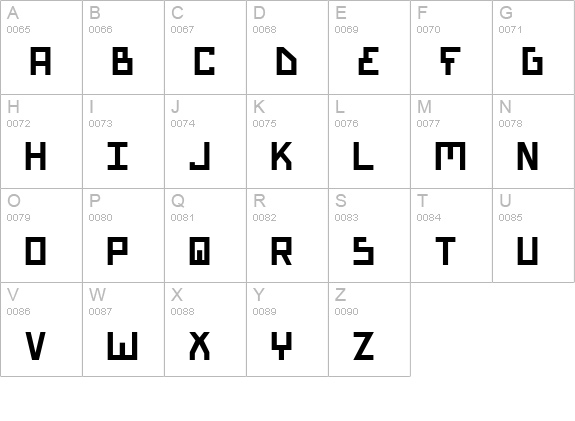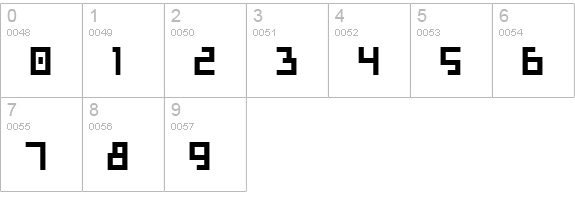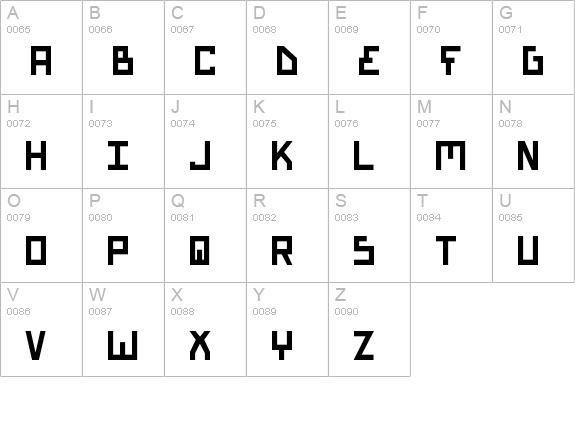
Bionic Type Bold is a strong, high-contrast variant in the Bionic typeface family \xE2\x80\x94 well suited to headlines, attention-grabbing titles, and strong calls-to-action.
Bionic Type Bold font is a sleek and modern typeface that exudes confidence and sophistication. Its sharp lines and bold strokes make it perfect for creating eye-catching designs that stand out. This futuristic font combines a sense of strength and innovation, making it ideal for projects that require a cutting-edge aesthetic. The best part about Bionic Type Bold font is that it is available for free download at FontsMarket.com. This means you can easily access this stylish typeface and use it in your personal and commercial projects without any cost. Whether you're designing a poster, website, or logo, Bionic Type Bold font will bring a dynamic and contemporary touch to your work. So why wait? Download this striking font today and elevate your designs to the next level!